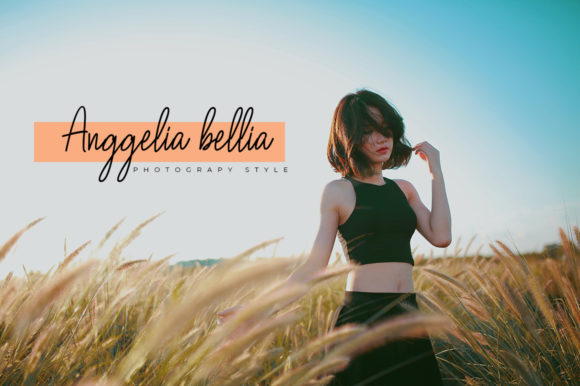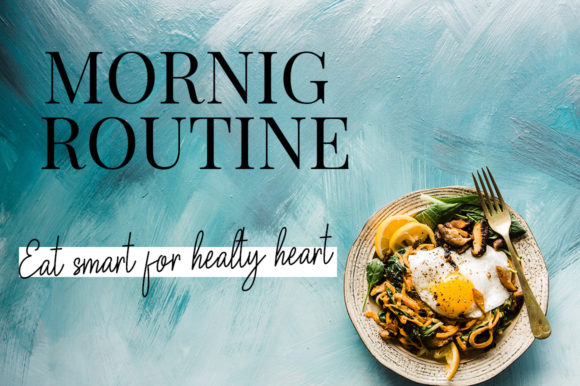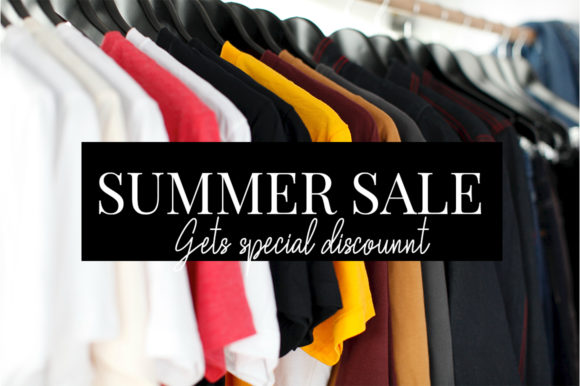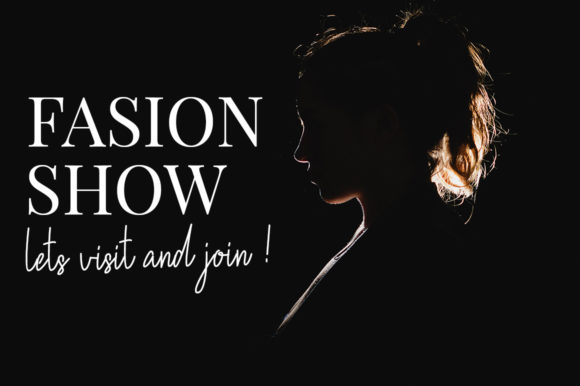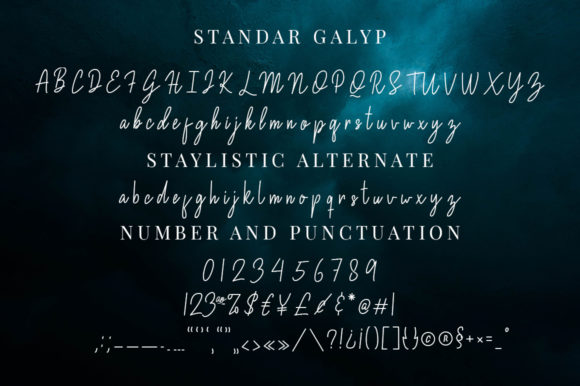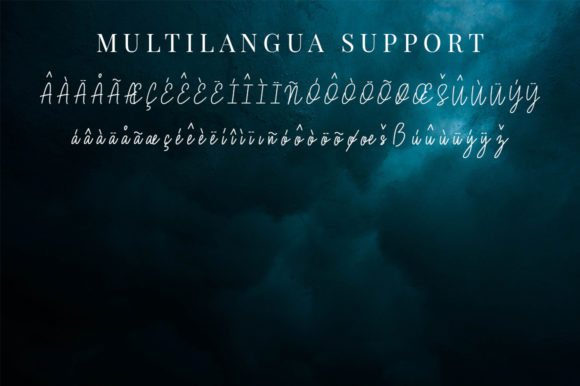
Introduction to Reisayana Font
Have you ever stared at a blank page, pen in hand, waiting for the perfect idea to strike? For designers, this moment of creative uncertainty can be both thrilling and intimidating. But what if you had the perfect tool to spark your imagination and bring your vision to life? Enter the Reisayana Font, a beautiful and elegant handwritten font that’s sure to captivate your senses and elevate your design game.
As a valuable addition to any designer’s toolkit, the Reisayana Font offers a unique blend of style and sophistication, making it the perfect choice for any creative project. Whether you’re working on a personal design, a client project, or simply experimenting with new ideas, this high-quality font is sure to provide the inspiration you need to take your work to the next level.
Key Features of Reisayana Font
- Includes a range of font styles and weights, making it a versatile design resource for various creative projects.
- Unique, hand-drawn design style that adds a touch of elegance and sophistication to any creative project.
Honest Review: Reisayana Font
I recently stumbled upon the Reisayana Font, and I’m excited to share my thoughts on this design resource. As a designer, I’m always on the lookout for high-quality fonts that can elevate my creative projects.
- ✨ The font’s unique and modern design makes it perfect for modern and trendy projects.
- ✨ The font is highly customizable, allowing designers to adjust the font’s size, style, and color to suit their needs.
- ⚠️ The font’s transparent background can sometimes make it difficult to read, especially in dark-colored backgrounds.
- ⚠️ The font may not be suitable for projects that require a lot of text, as it can be quite busy and overwhelming.
Overall, I’m impressed with the Reisayana Font, and I would definitely recommend it to designers working on modern and creative projects. While it has its limitations, the font’s unique design and high quality make it a valuable addition to any design resource library.
The Reisayana Font is a high-quality, free design resource ideal for creative projects that require a unique and elegant touch. This font features a transparent background, making it perfect for overlaying text on images or videos.
Tips for Getting the Most Out of Reisayana Font
To get the most out of the Reisayana Font, experiment with different font sizes and colors to create a unique look. You can also combine the font with other design elements, such as graphics or images, to add depth and interest to your designs.
The Reisayana Font is ideal for a variety of creative projects, including logos, business cards, and social media graphics. Its elegant and sophisticated design makes it perfect for formal events, such as weddings or conferences, as well as for personal branding and marketing materials.
Q: Can I use the Reisayana Font for a creative project that requires a high level of customization?
Yes, the Reisayana Font is designed to be highly customizable, making it an excellent choice for creative projects that require a high level of design flexibility. You can easily edit the font’s weight, style, and other attributes to fit your design needs.